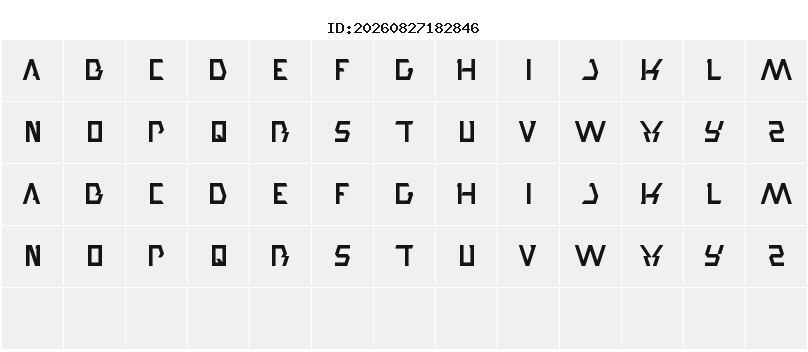
• Font Name: trade and mark
About trade and mark.ttf
trade and mark.ttf is a modern, elegant sans-serif font designed for ultimate readability and visual harmony. Perfect for branding, headlines, web design, and print materials.